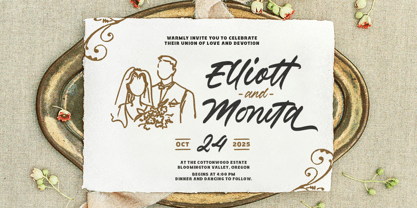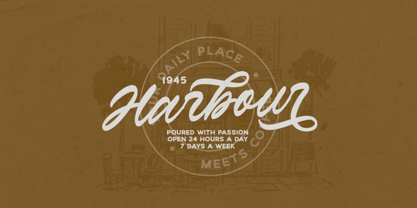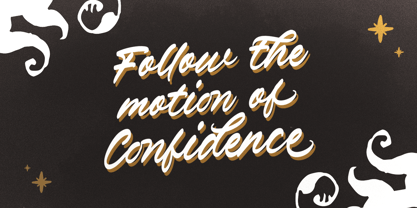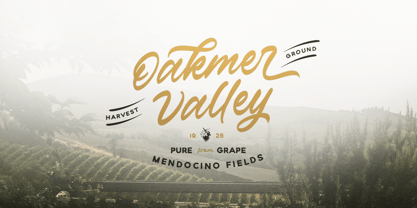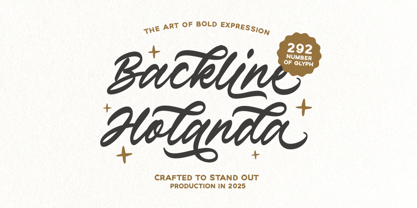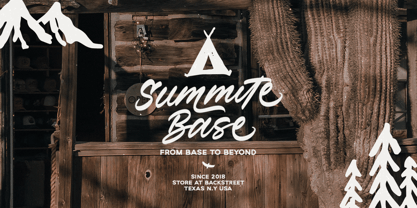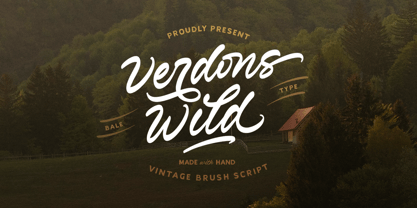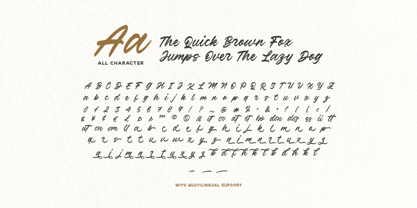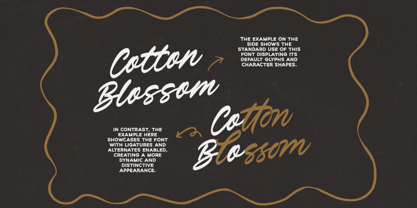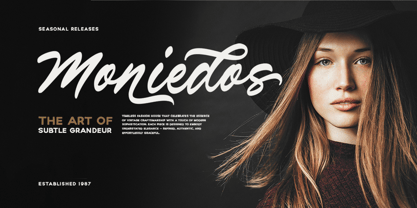
Verdons Wild
Die Schriftfamilie Verdons Wild wurde von Dzikrul Aulia entworfen und von Bale Type veröffentlicht. Verdons Wild enthält 1 Stile. Mehr über diese Familie
Verdons Wild is a vintage brush script with bunch of alternates and ligatures. You can use this font for any occasion such as logotype, branding, quotes, wedding, or any project with outdoor and adventure theme. With the alternates, you can create even more stunning design and project. This font also support multi language. The extra alternates make it easy to customize your text and create more eye-catching designs.